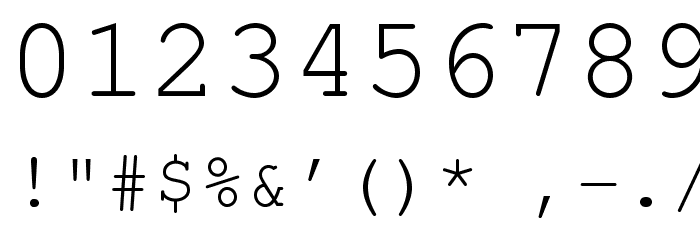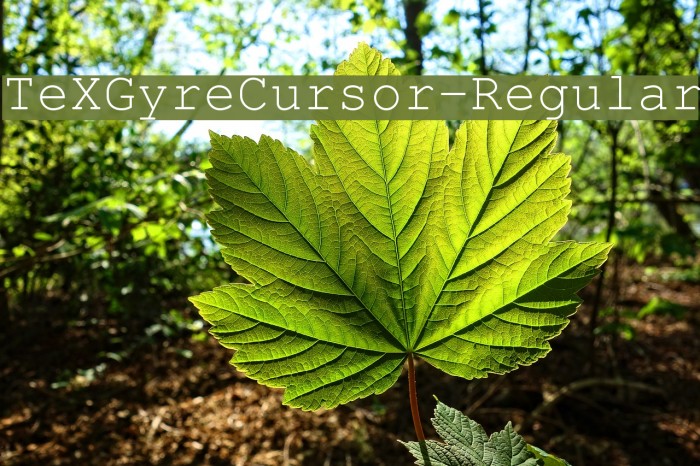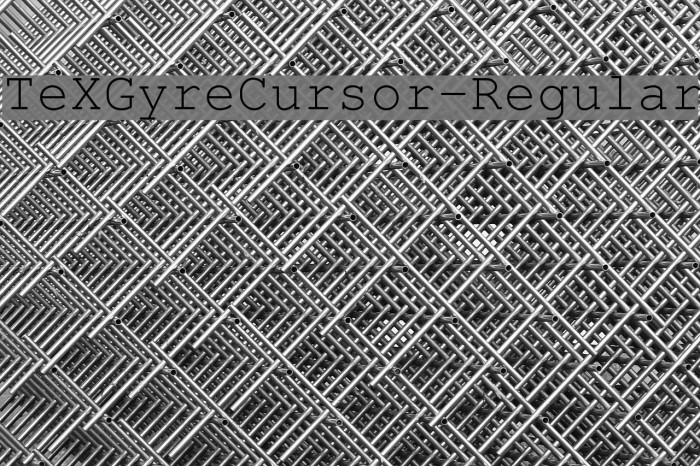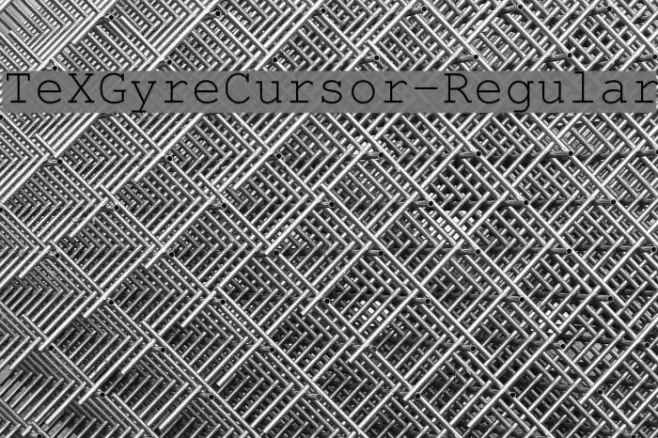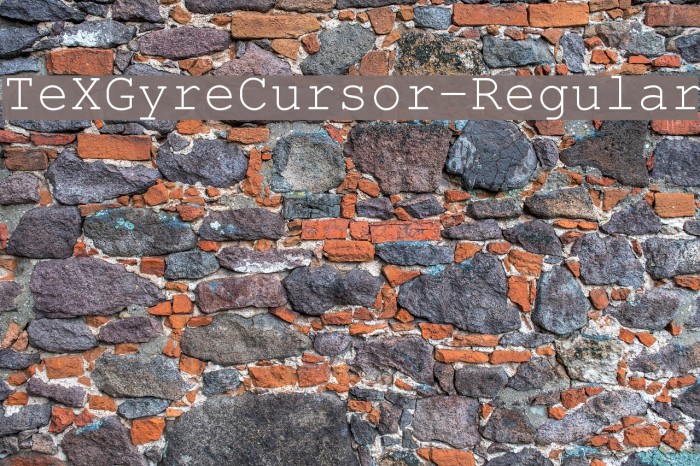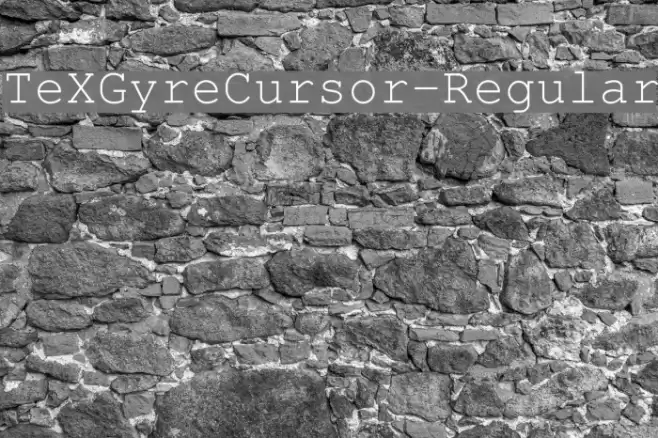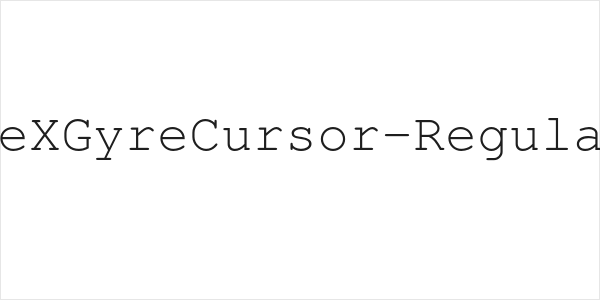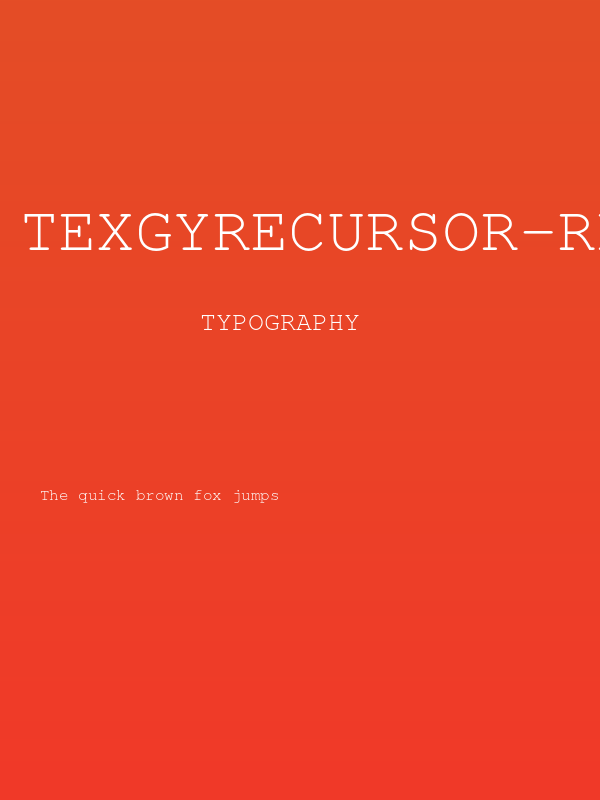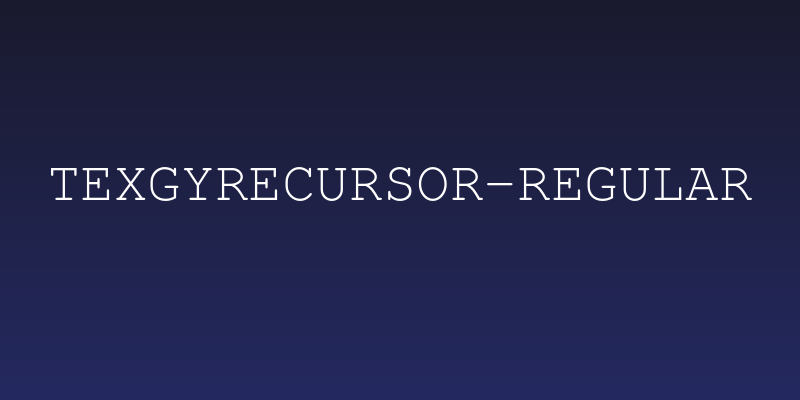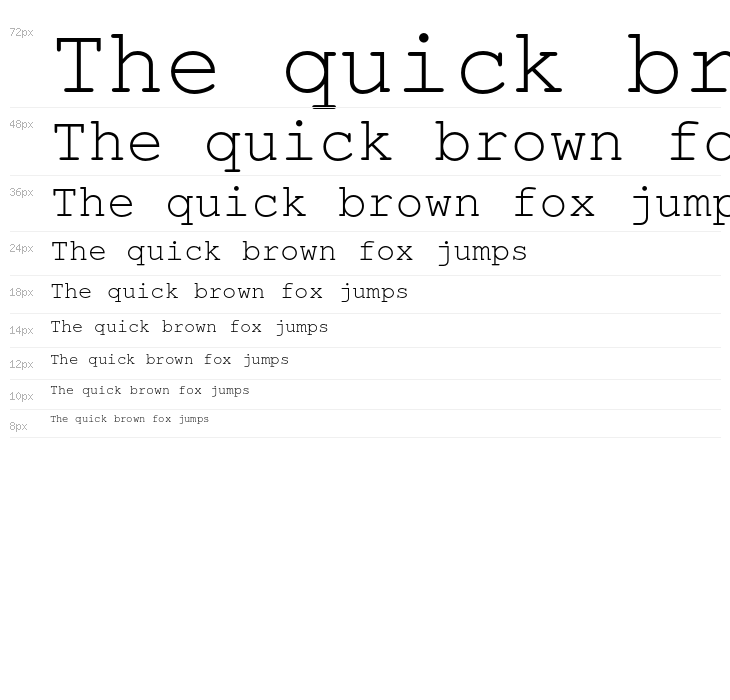
TeXGyreCursor-Regular Font
TeXGyreCursor-Regular Description
This font features a monospaced design with a classic typewriter aesthetic. Each character is evenly spaced, providing a uniform appearance that is ideal for coding and technical documentation. The strokes are consistent in width, offering a low contrast that enhances readability. The font includes a full set of uppercase and lowercase letters, numerals, and a variety of special characters, making it versatile for various applications. Its clean and straightforward style is reminiscent of traditional typewriter fonts, yet it maintains a modern touch suitable for contemporary use.
| Use Case | Coding, Technical documentation |
| Proposed Projects | Ideal for coding, technical documentation, and any project requiring a monospaced font. |